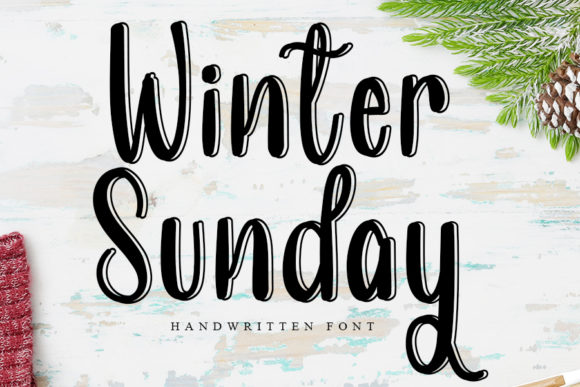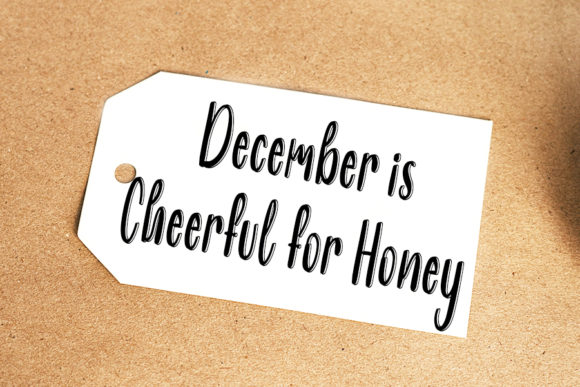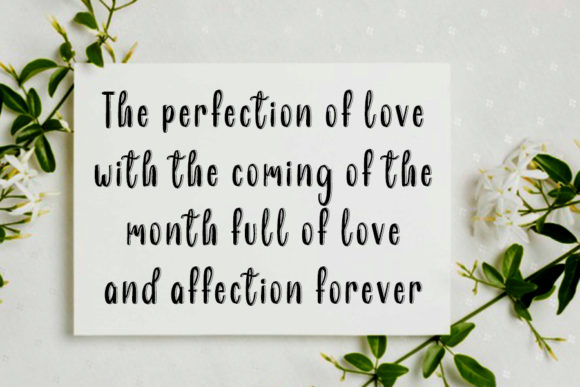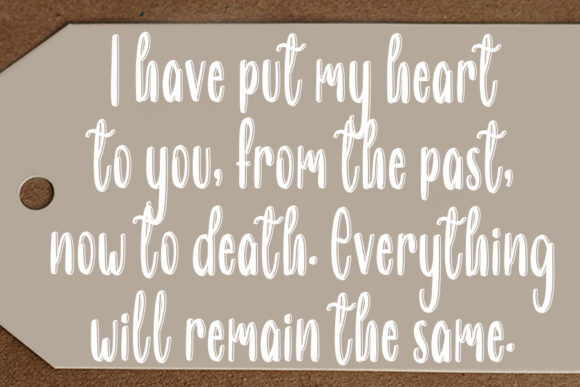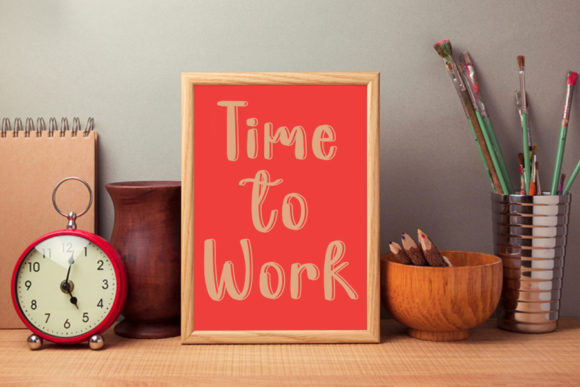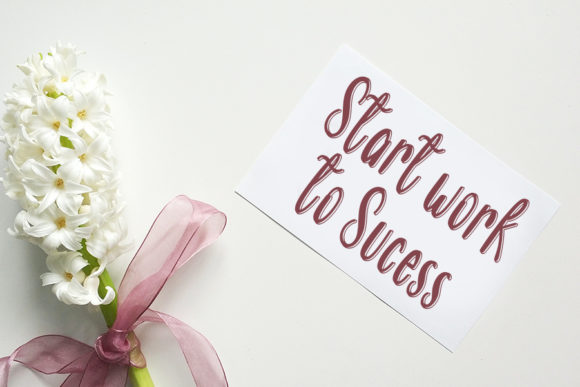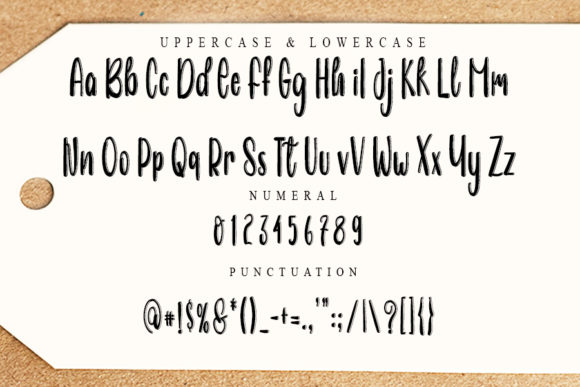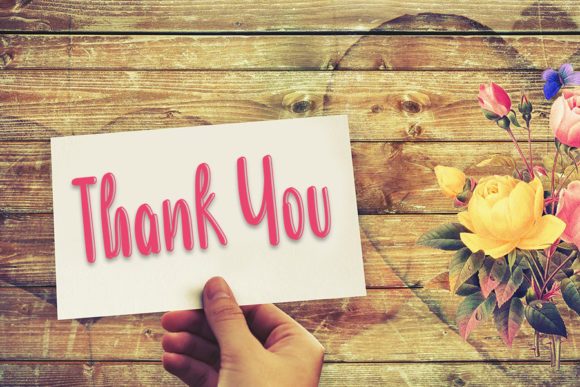
Winter Sunday Font
About Winter Sunday Font
Winter Sunday is a delicate and elegant script font. Its distinct and well rounded letters make this font a masterpiece. Fall in love with its incredibly versatile style and use it to create spectacular designs!